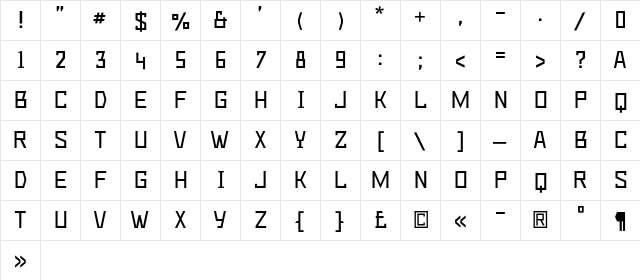
DeadMetroC Regular Font Preview
DeadMetroC Regular
Design Context for DeadMetroC Typeface
DeadMetroC takes a measured approach to typography — its balanced proportions and neutral character make it a reliable workhorse for both digital and print work.